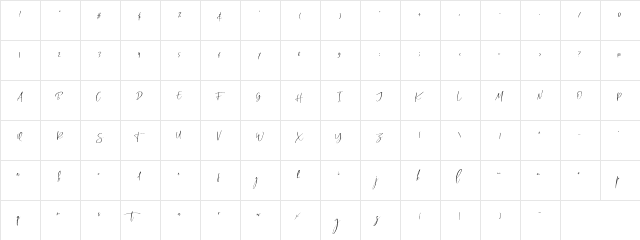
Callistera Script Free Regular
| Foundry | Sarid Ezra |
| Designer | Sarid Ezra |
Design Context for Callistera Script Free Typeface
Callistera Script Free brings a calligraphic fluidity to the page — its connecting strokes and expressive curves give it an unmistakably human quality.